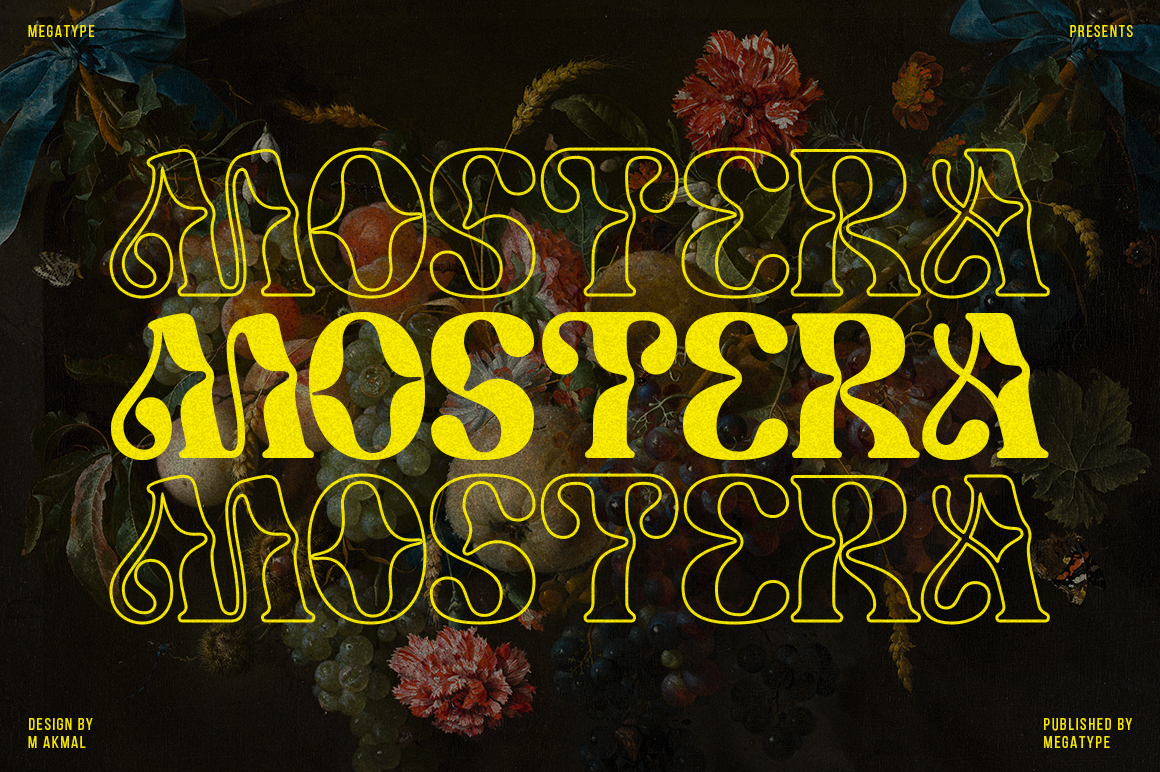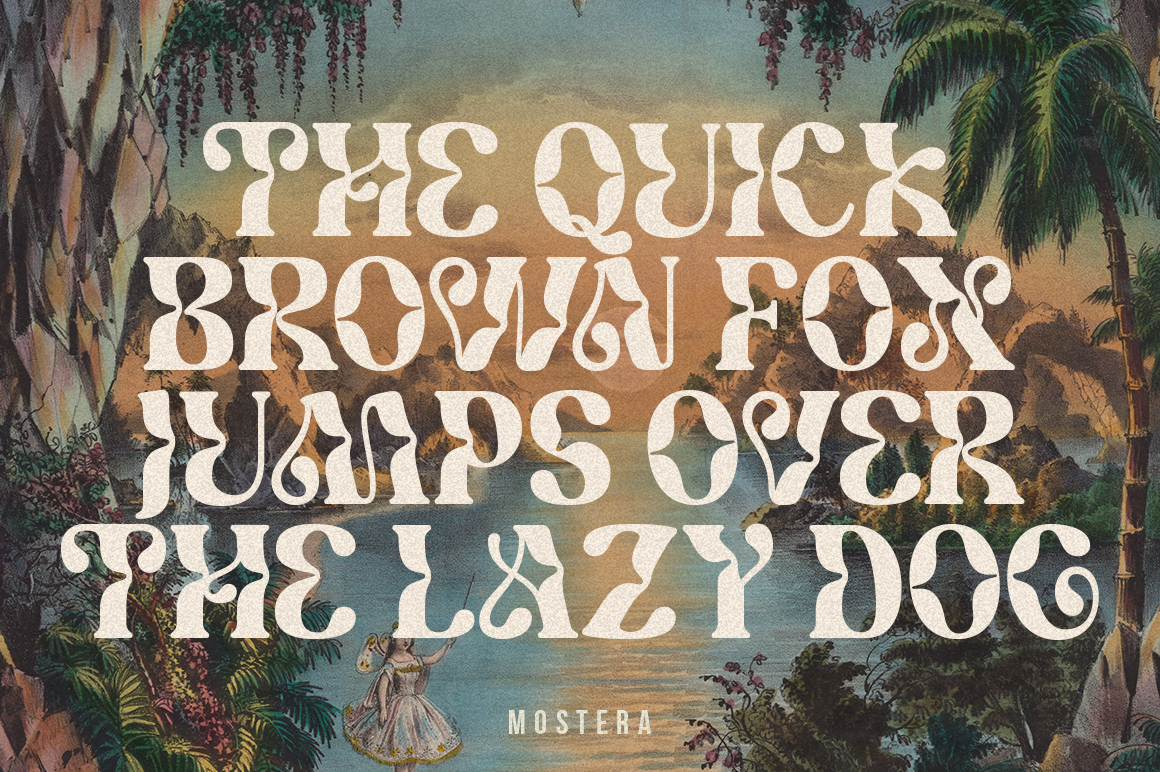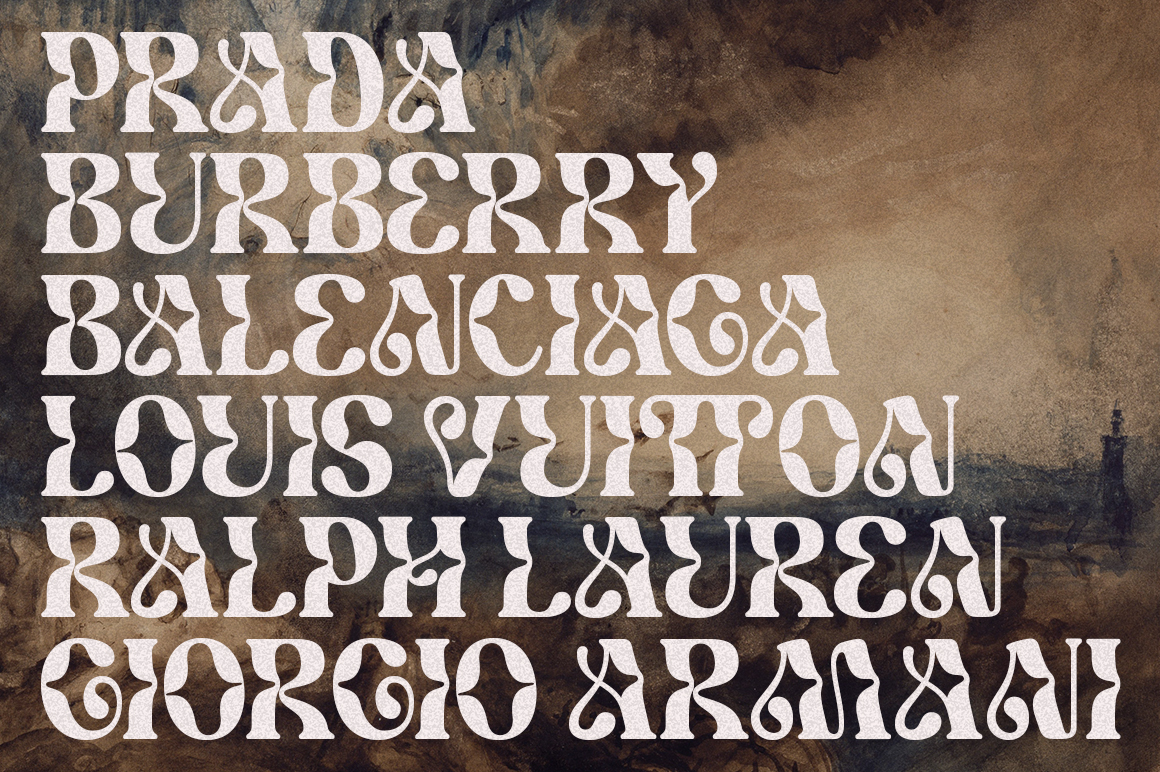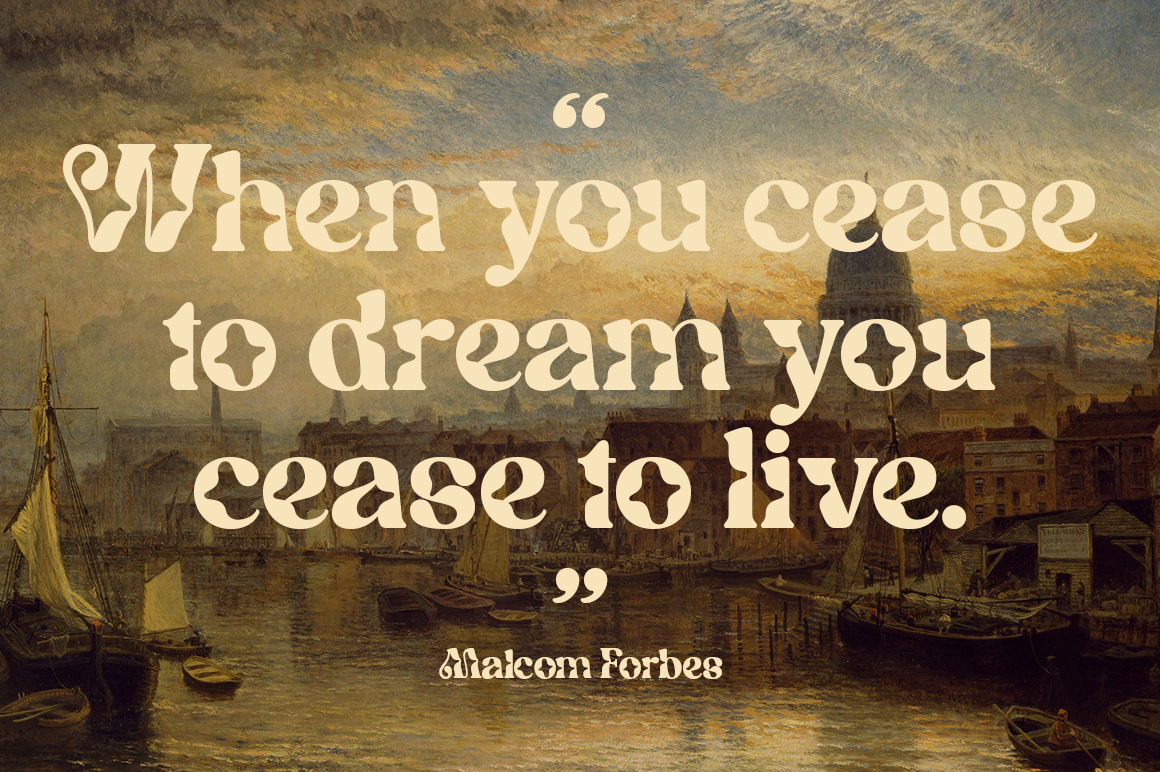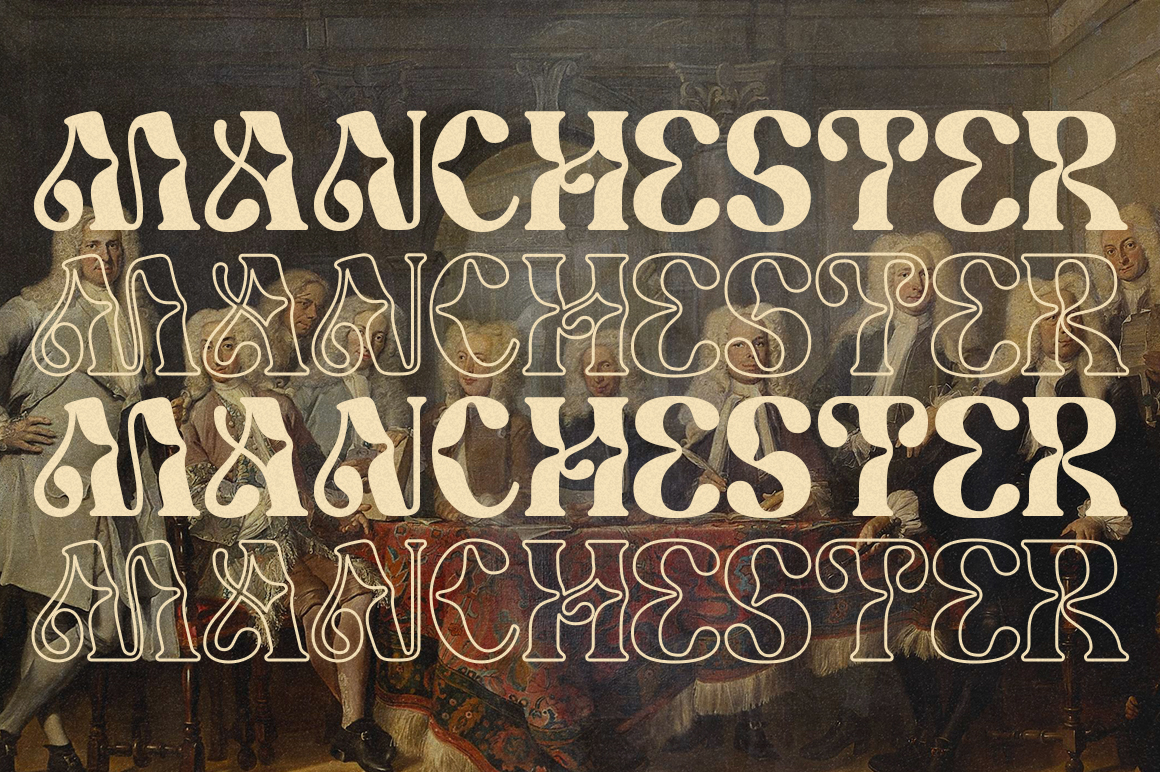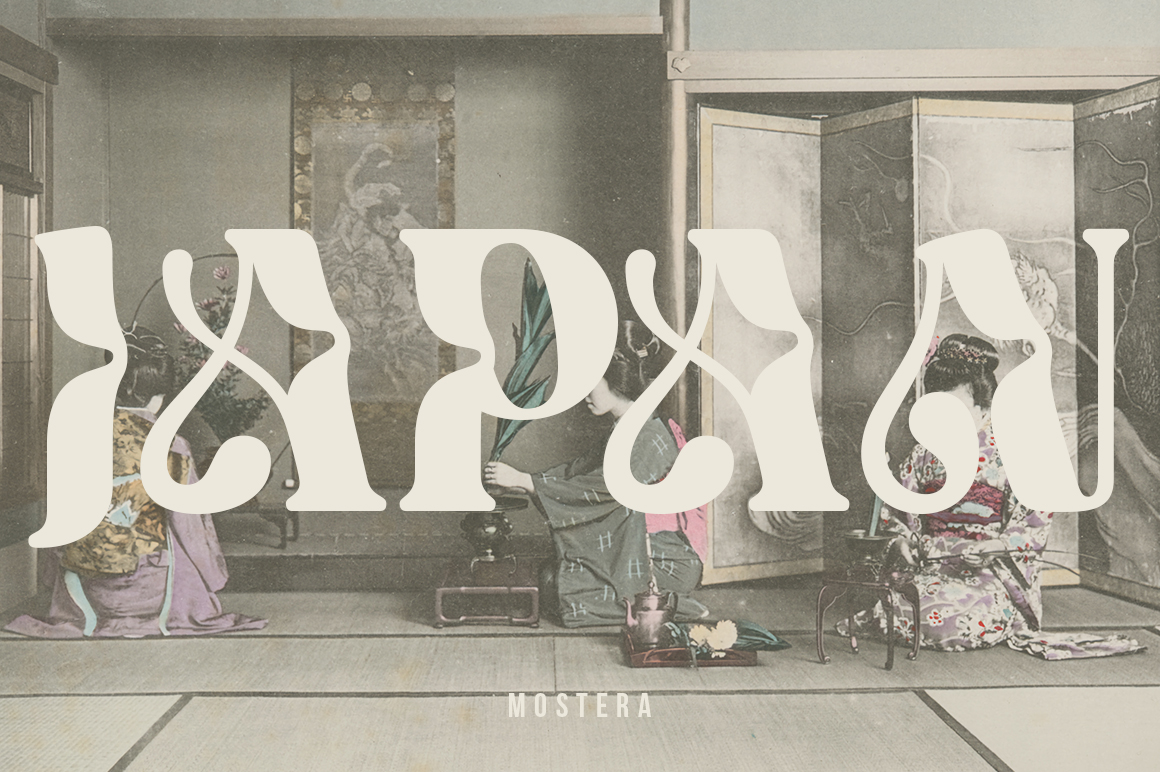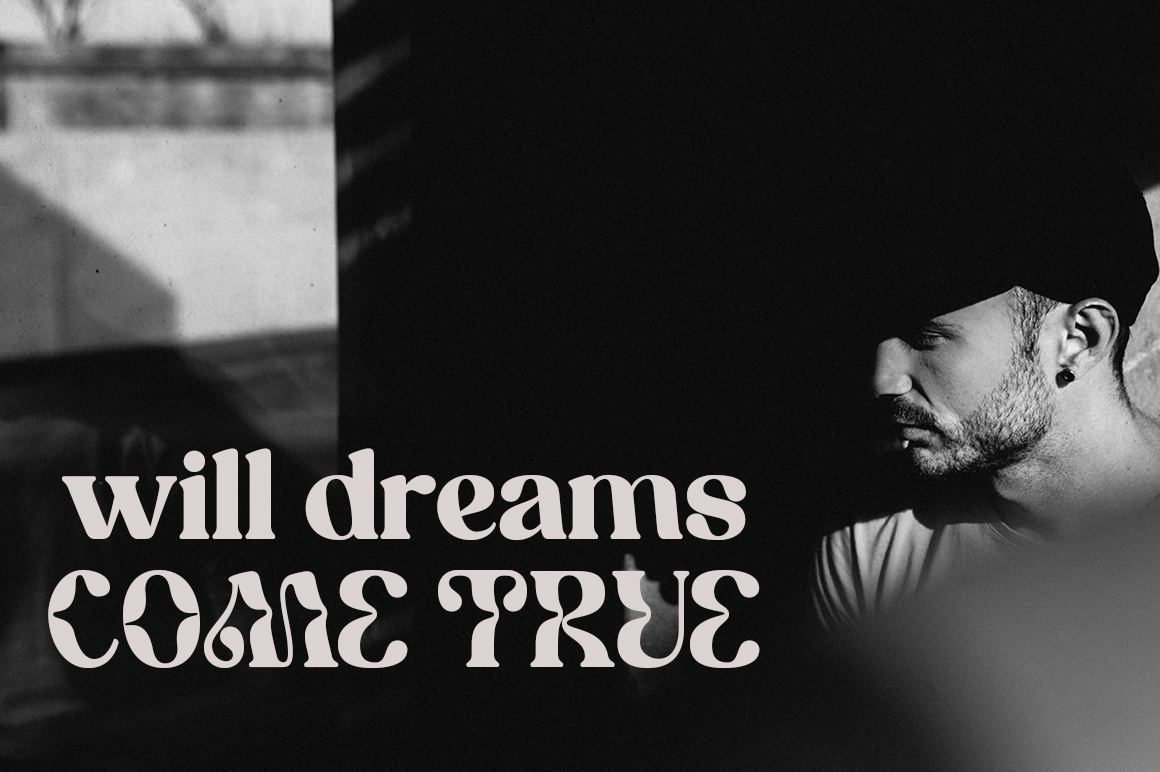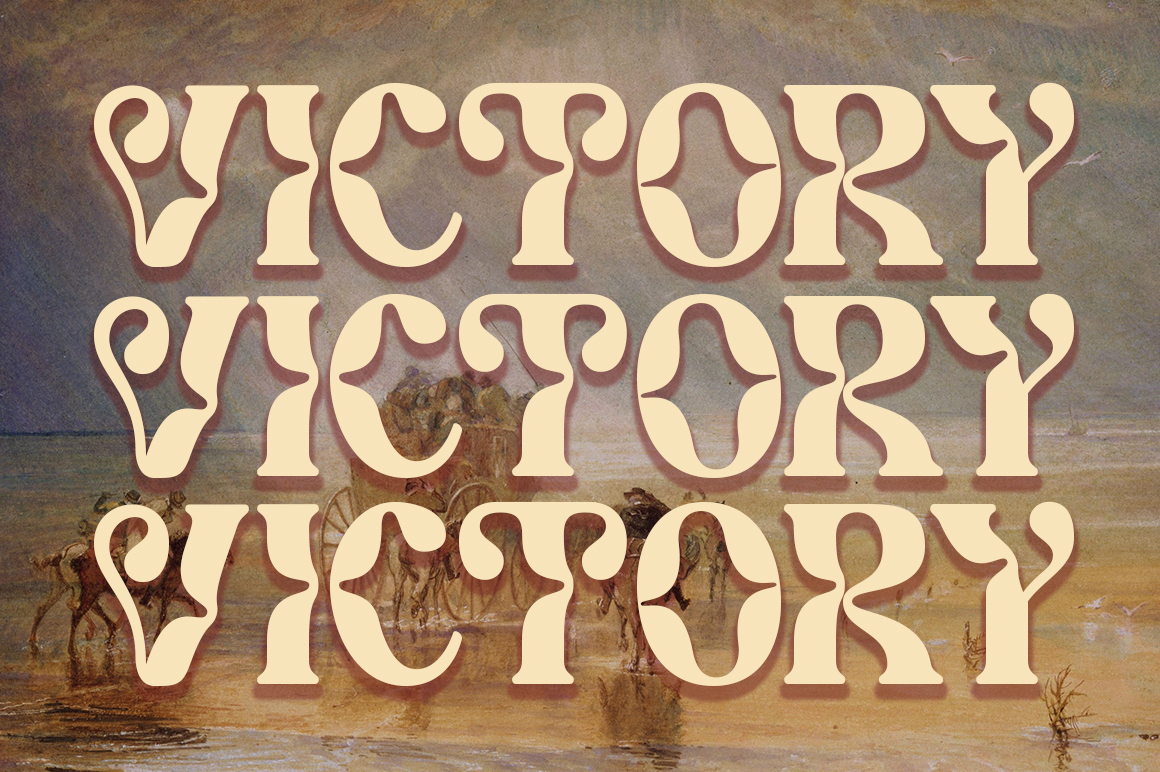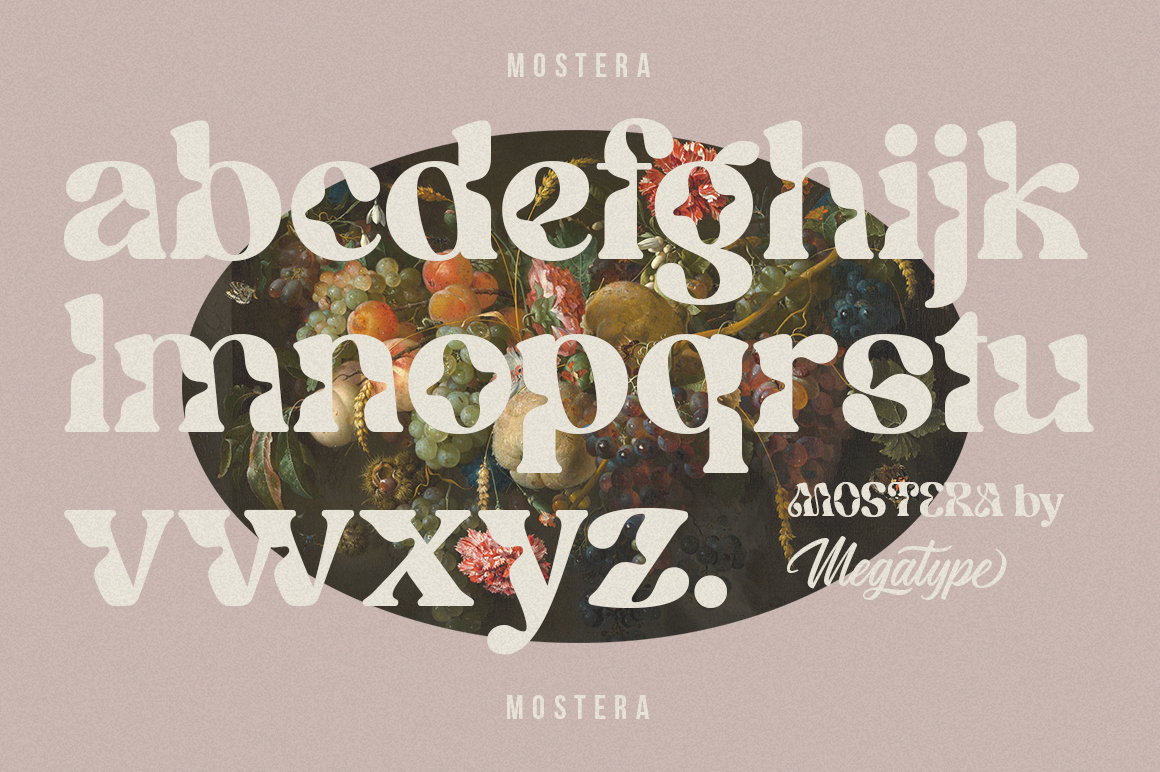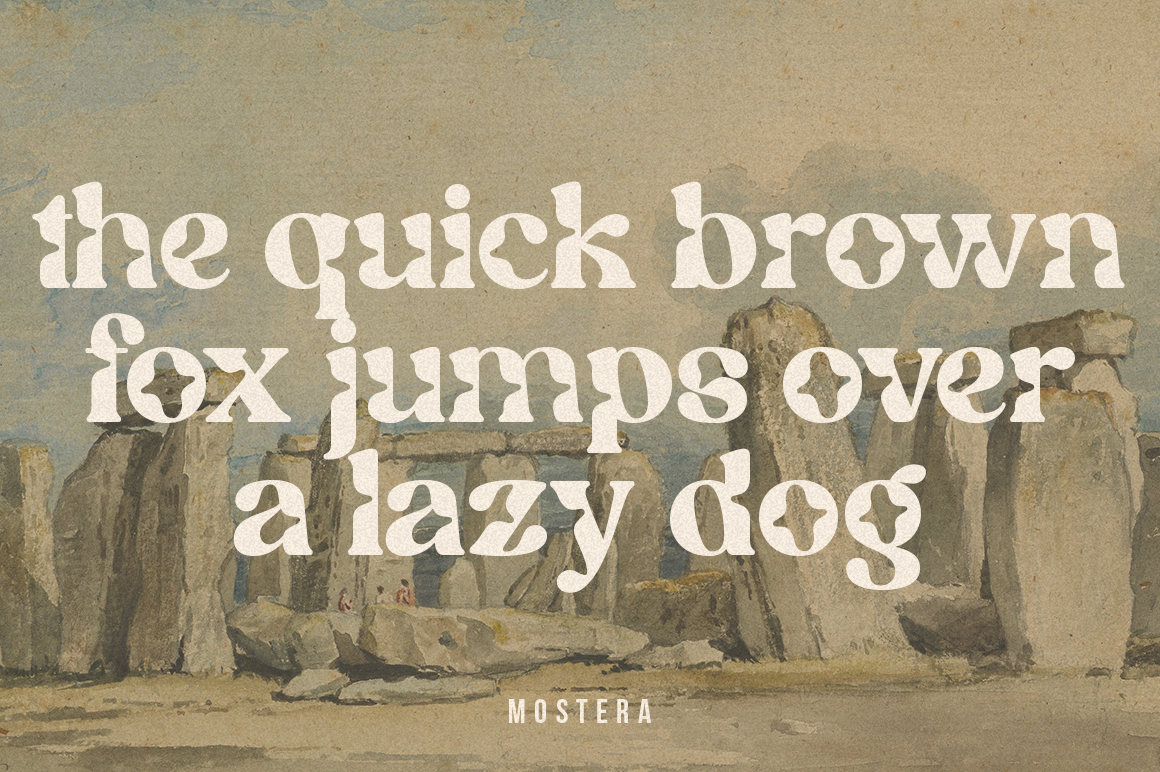
Mostera is a fun unique display serif font. This font looks sturdy and fun with a retro touch and curves giving it a playful personality.
Mostera is a versatile display serif that works in both large and small sizes. This font is suitable for a wide variety of projects such as: headlines, logos, labels, branding projects, weddings, magazines, product packaging, mugs, quotes, posters, and more.